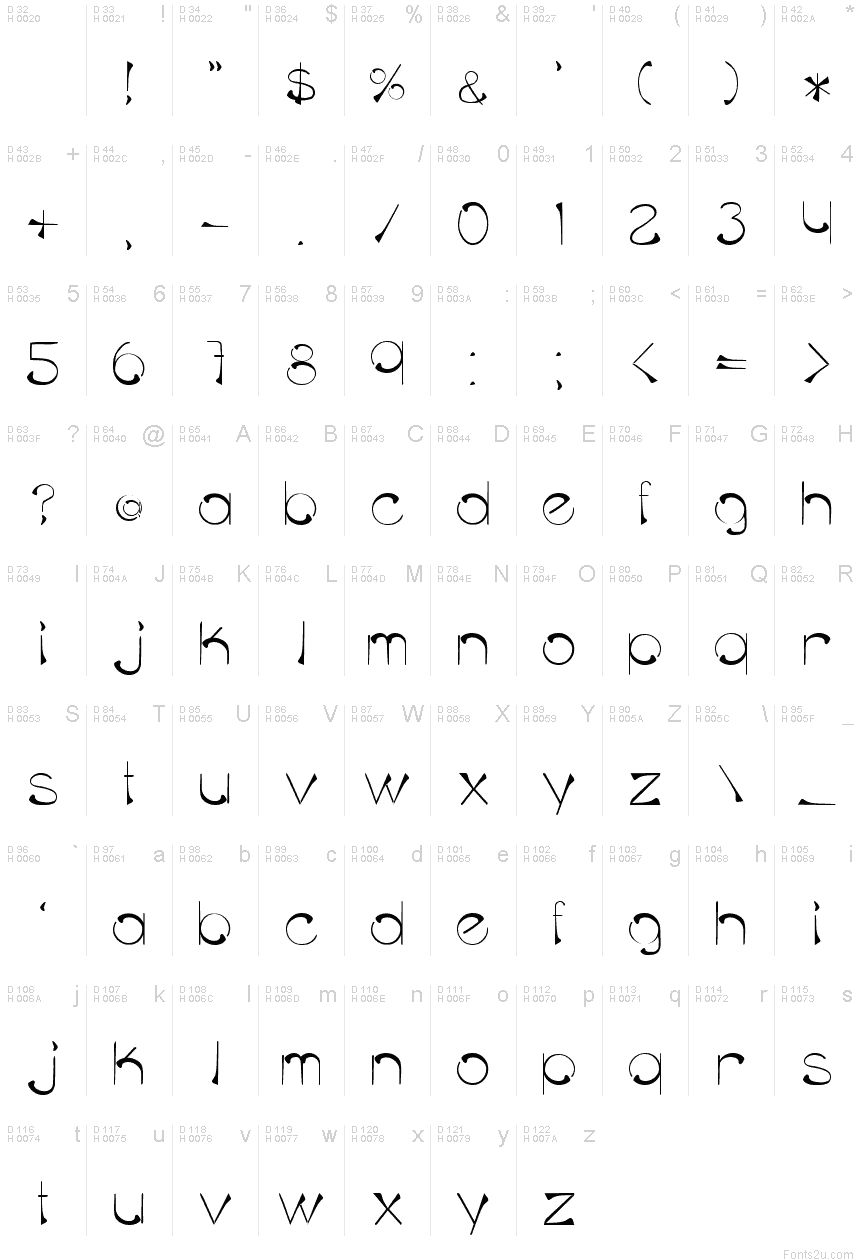
CFB by Nigma Fonts is a free groovy display font whose open circular forms, looping curves, needle-thin lines, and broad black turns recall the sleek, experimental side of 1970s futurism. The rounded letters often look like bent tubing.
As theatrical lettering, it can become part of the image itself on music posters, album covers, fashion graphics, nightclub promotions, and electronic event graphics built around a retro-futurist theme. Its sudden stroke changes also make sense on cosmetic packaging and boutique branding, where the repeated curls can act as a recognizable signature across an upscale product line instead of ordinary lettering.